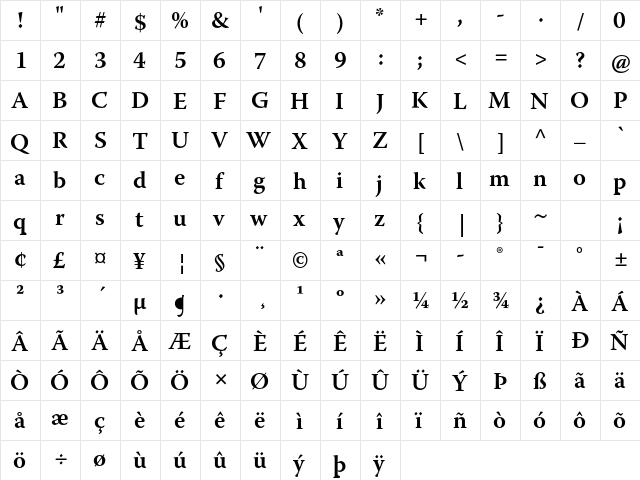
Warnock Pro Semibold
| Designer | Robert Slimbach |
Design Context for Warnock Pro Typeface
Warnock Pro takes a measured approach to typography — its balanced proportions and neutral character make it a reliable workhorse for both digital and print work. Its bold stroke weight gives it real presence on the page.